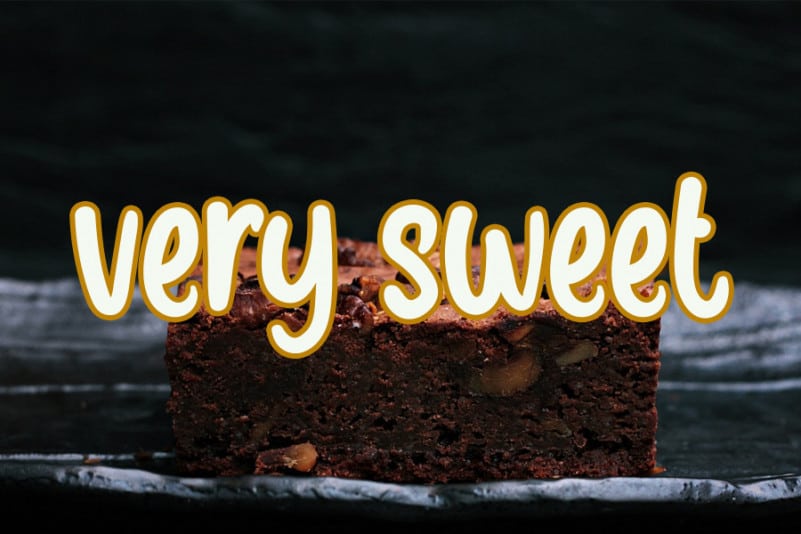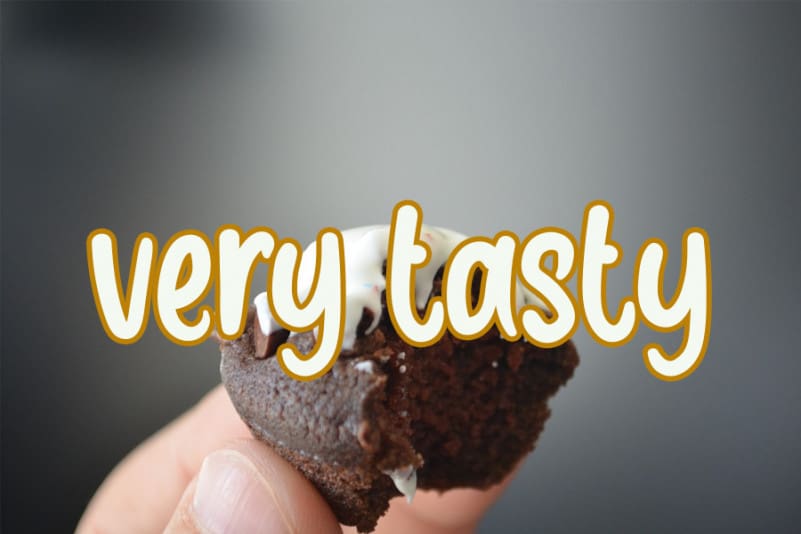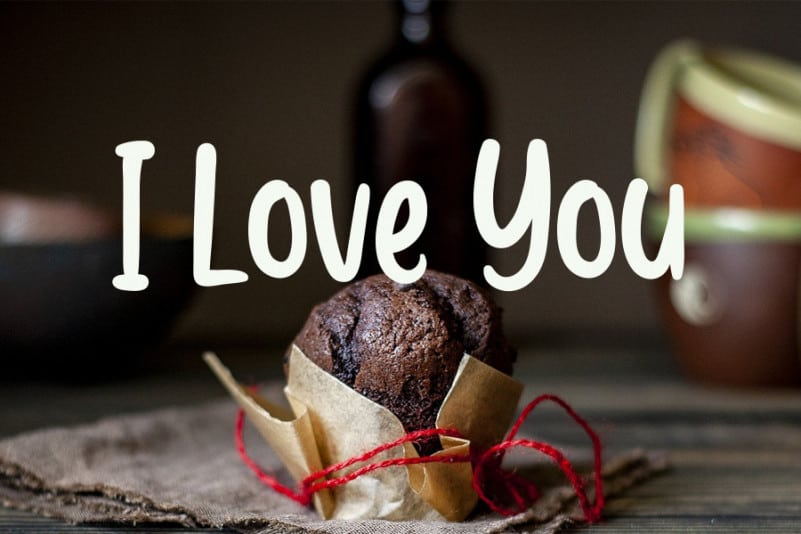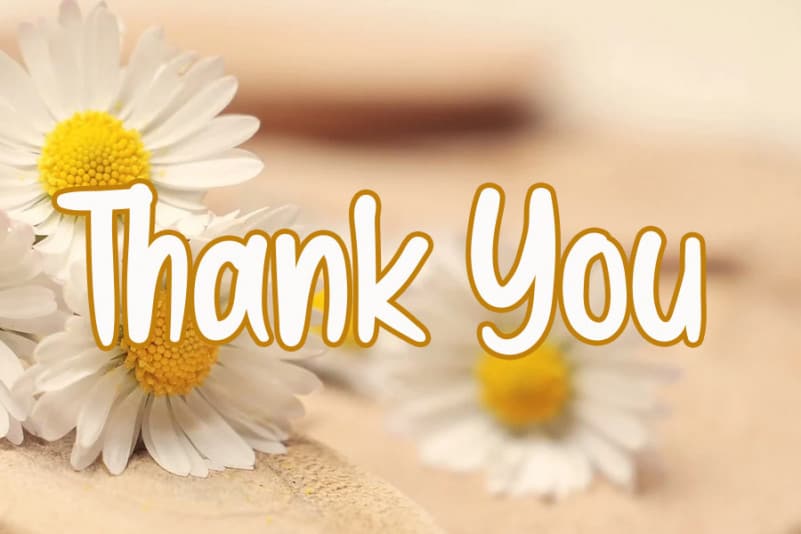
Brownie Cake Display Font
Brownie Cake Display Font is a casual handwritten font. Simple and easy to use, this font will be very beautiful if you mix it with your various craft designs.
Brownie Cake Display Font is a very talented product for you to use,
Latest letters that can be used for various products, invitations, wall hangings, weddings, and more.